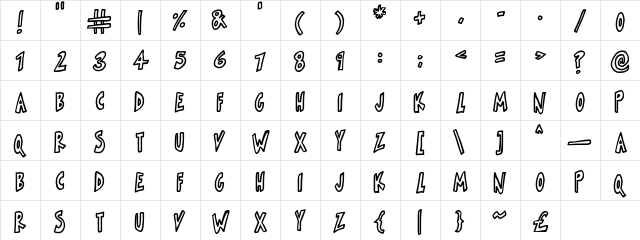
Skinnymalink Regular
Design Context for Skinnymalink Typeface
Skinnymalink is a composed and adaptable typeface that performs quietly and consistently across a wide range of design contexts.